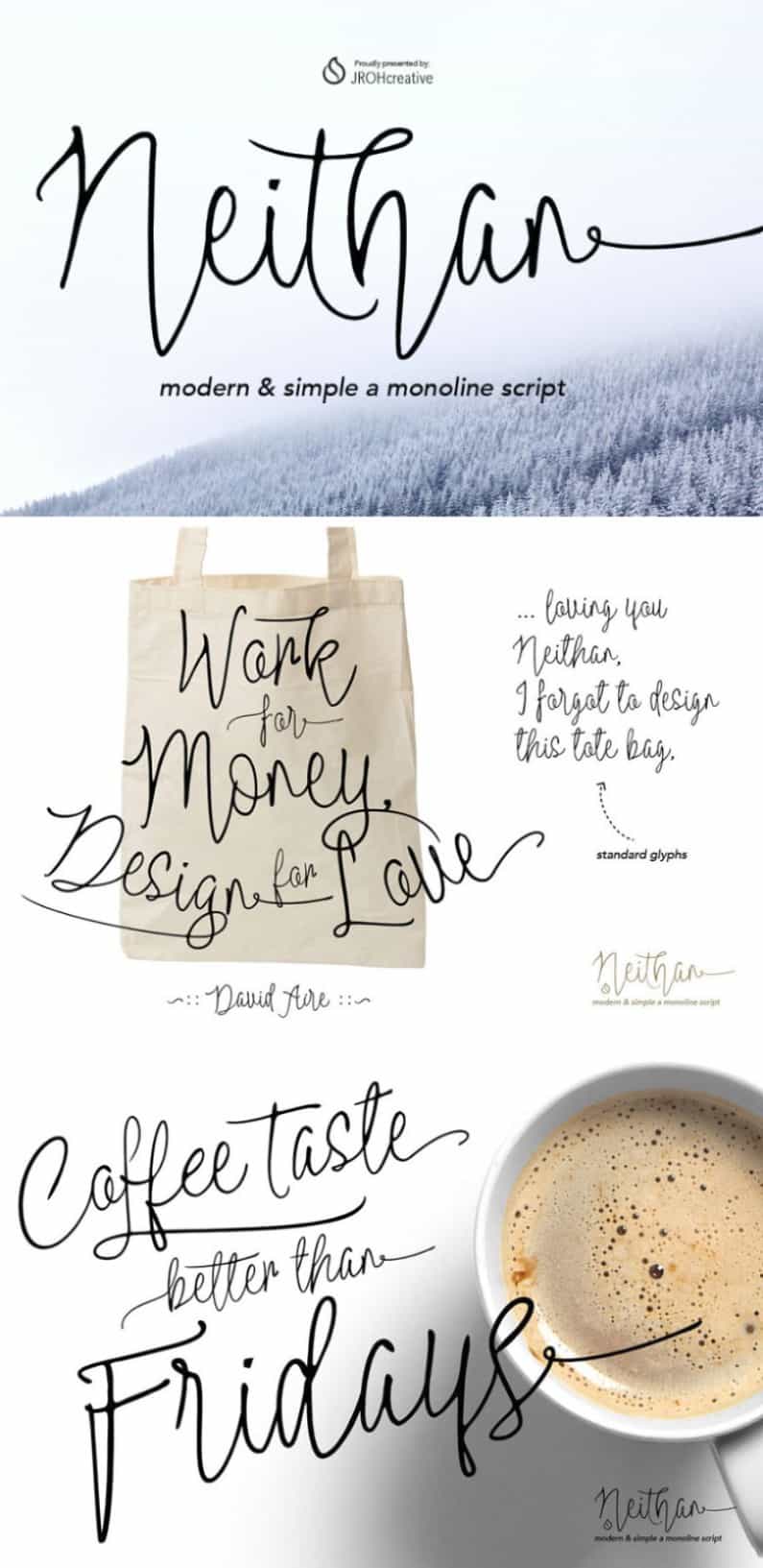
Neithan monoline script is clean simple and easy to read, distinct letter forms and overall font style is modern. Conscience facilitates spontaneous flow. Thus, Neithan is here to finish the dreams, which can sweep other people off their feet – that makes him perfect for logos, quotes, T-shirts, posters, headers for the blog or cards.